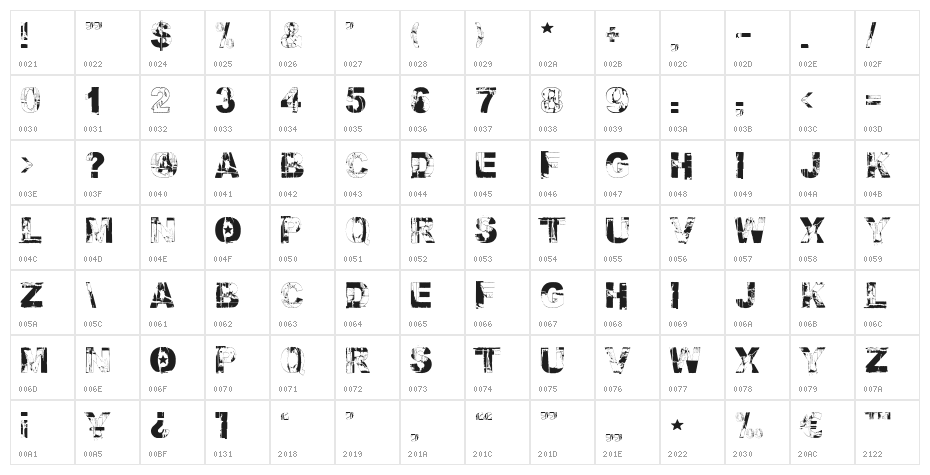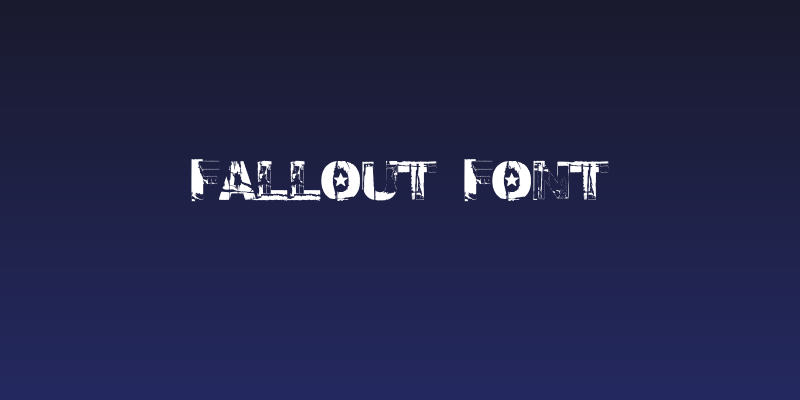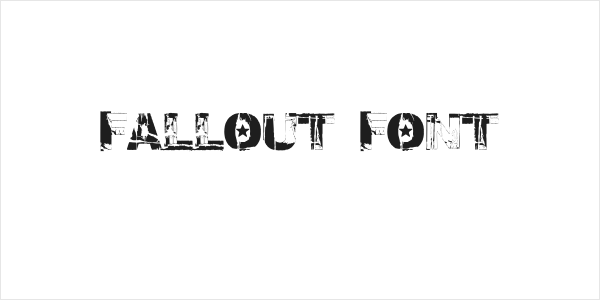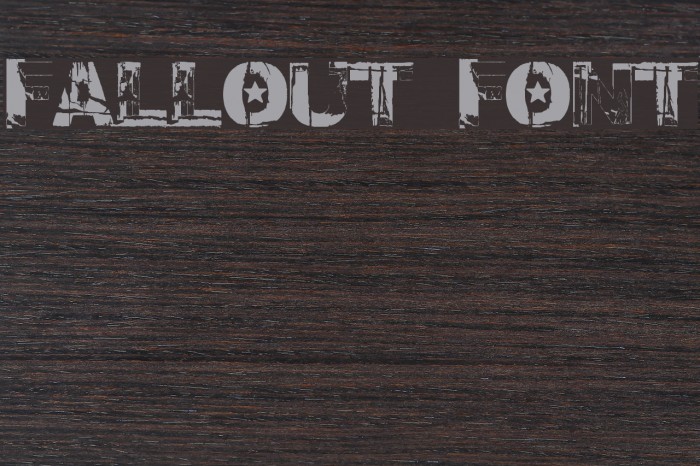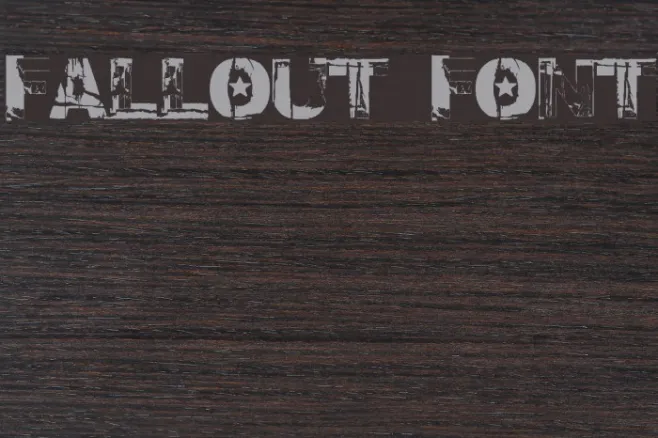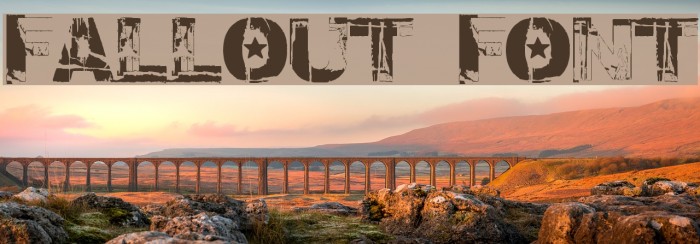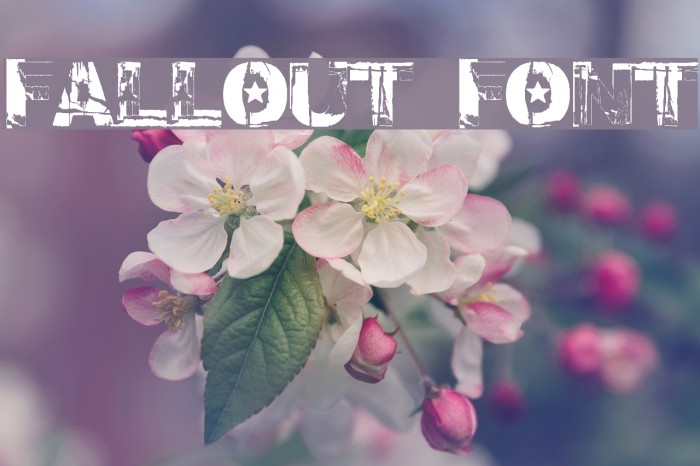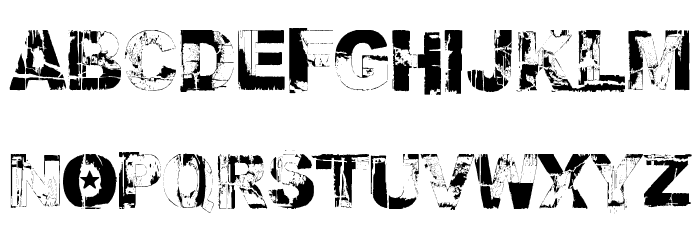
Fallout Font Font
Fallout Font Description
This font features a rugged, distressed appearance, reminiscent of post-apocalyptic or industrial themes. The characters are bold and heavily textured, with a worn-out look that suggests decay and age. The uppercase and lowercase letters maintain a consistent style, with irregular edges and a grunge effect that adds to the overall aesthetic. Numbers and special characters follow the same design, making the font suitable for projects that require a gritty, urban feel. The font's unique style makes it stand out, capturing attention with its bold and chaotic design.
| Proposed Projects | Ideal for video game titles, movie posters, or any design needing a post-apocalyptic or industrial theme. |